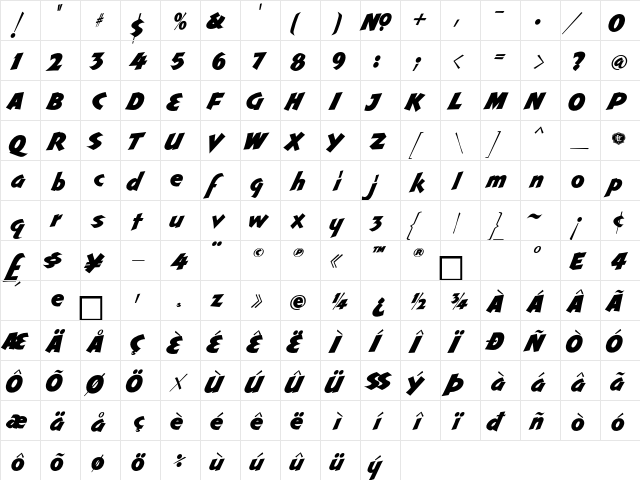
LHFCincinnatiPosterOVERSTROKE Regular
Design Context for LHFCincinnatiPosterOVERSTROKE Typeface
LHFCincinnatiPosterOVERSTROKE is a composed and adaptable typeface that performs quietly and consistently across a wide range of design contexts.